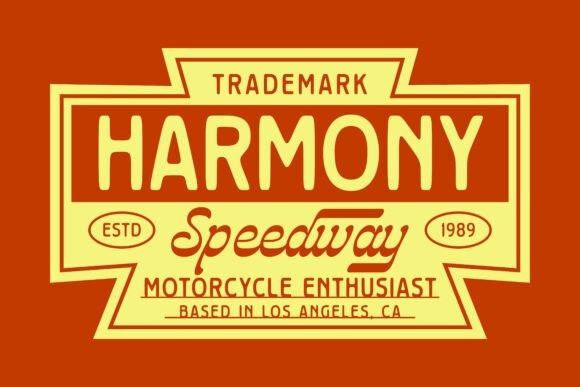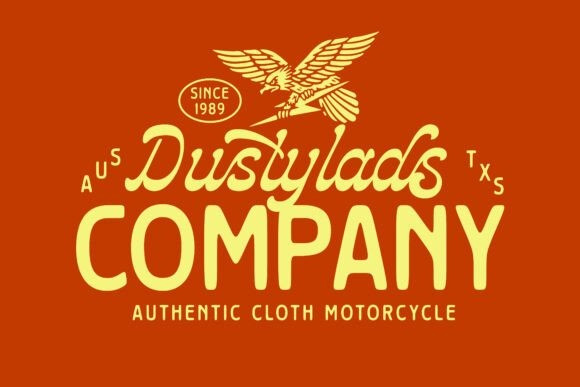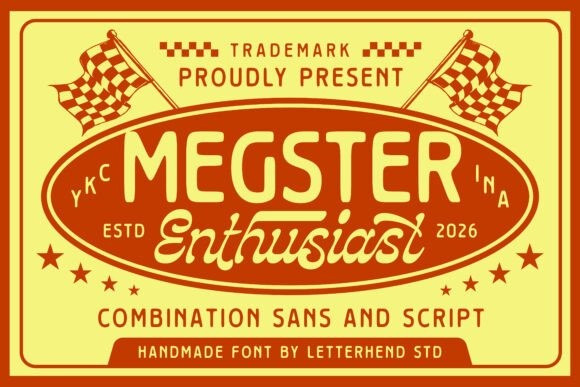
Megster Font Duo
Megster Font Duo a high-octane font duo that captures the raw, energetic spirit of vintage racing culture. This handmade combination features a rugged, bold Sans and a fluid, custom-style Script, designed to work in perfect harmony. Whether you are crafting a brand identity for an automotive shop, designing retro tournament posters, or building a high-impact apparel line, Megster Enthusiast delivers an authentic “grease and gears” aesthetic.